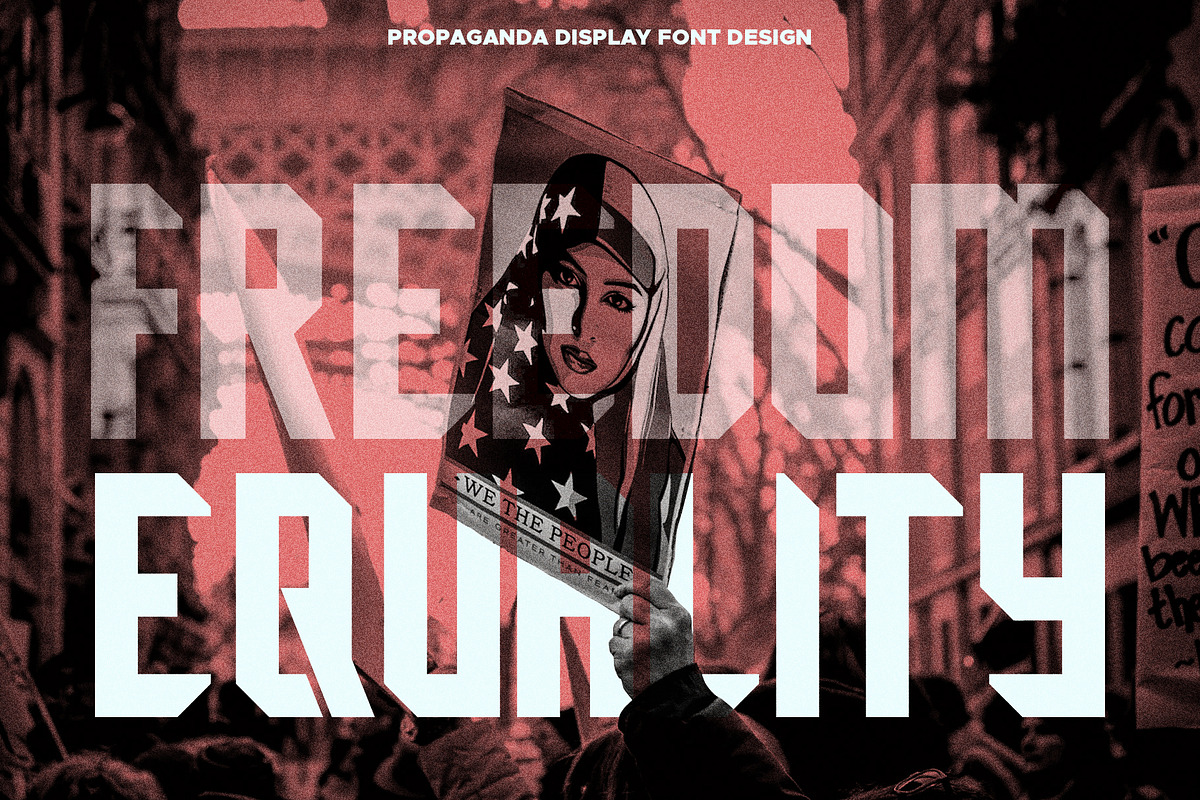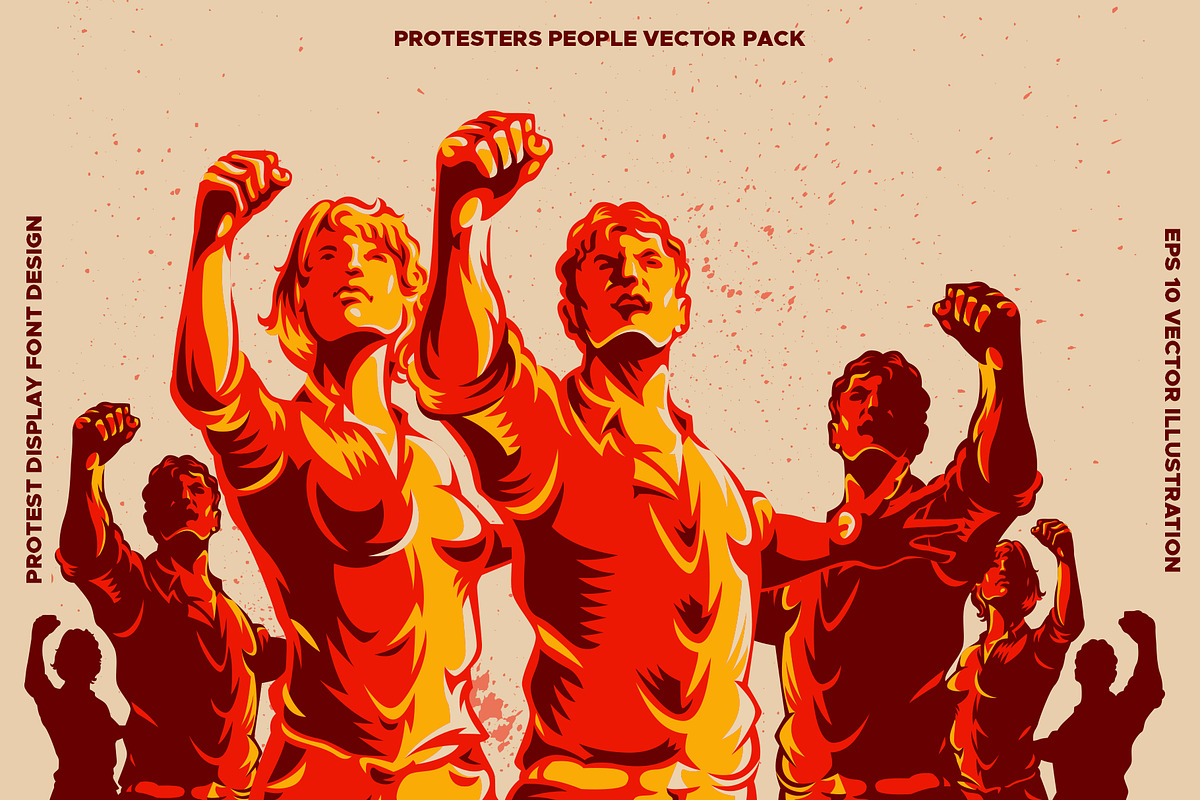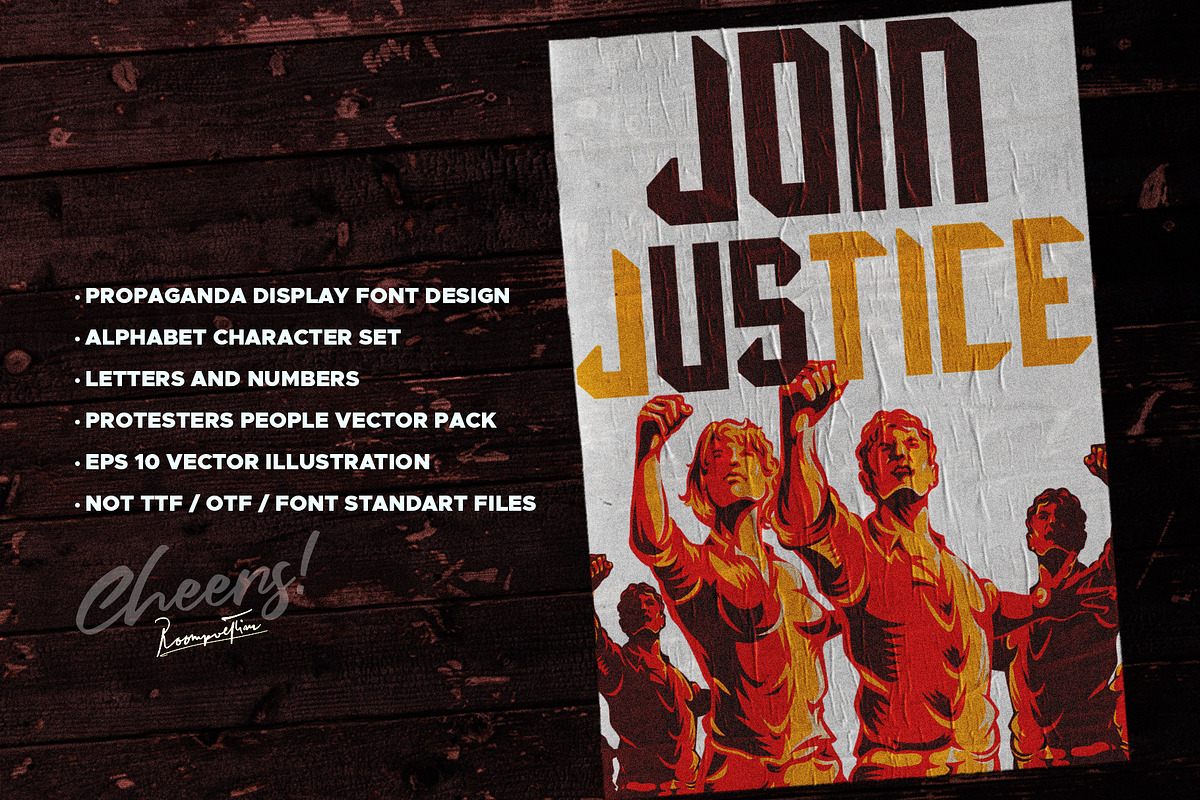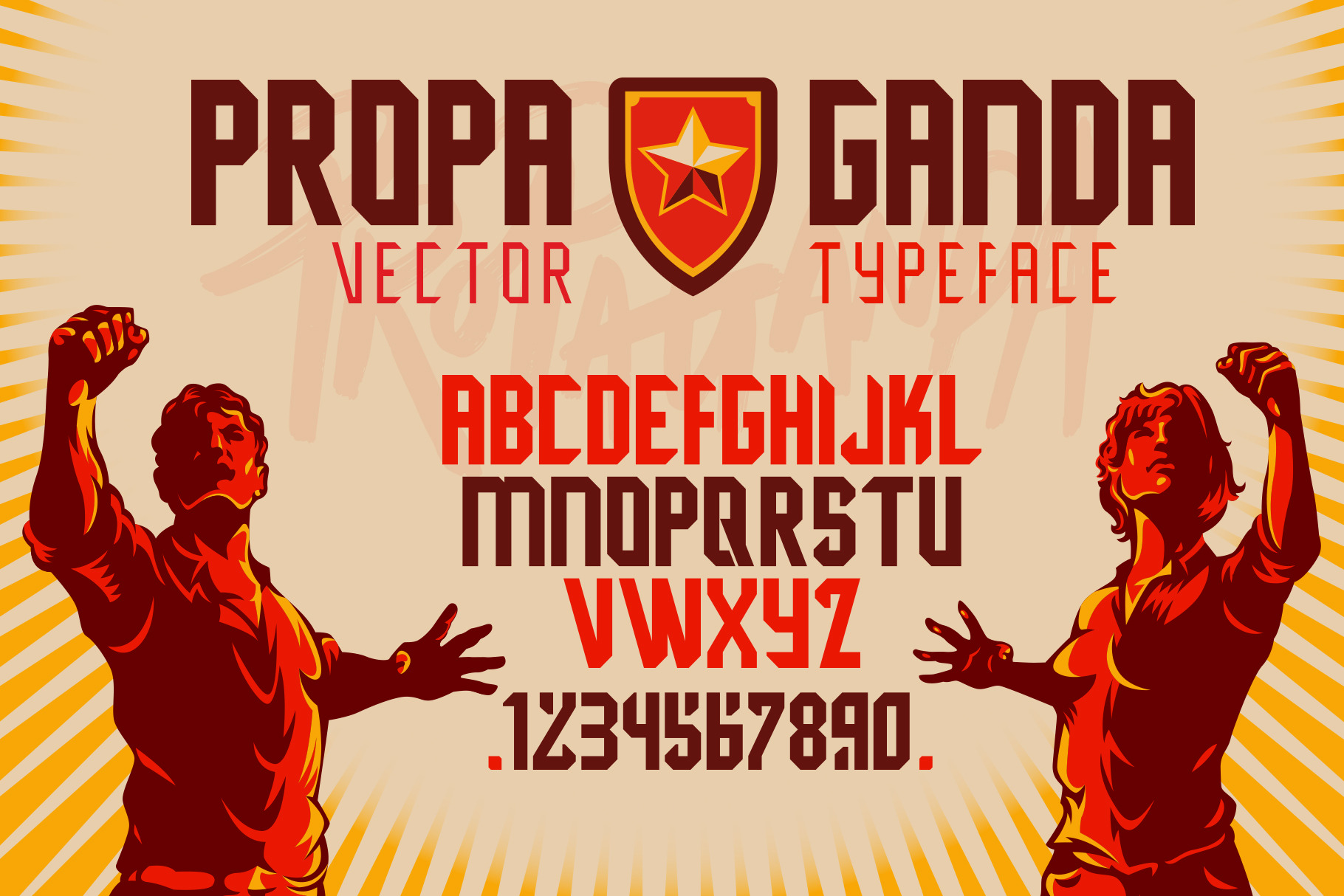
Propaganda Display Font Design
All objects separate. Decorative typeset. Sets can be used as Logotype, heading, background, t-shirt design, magazine, flyers, banner, film, etc